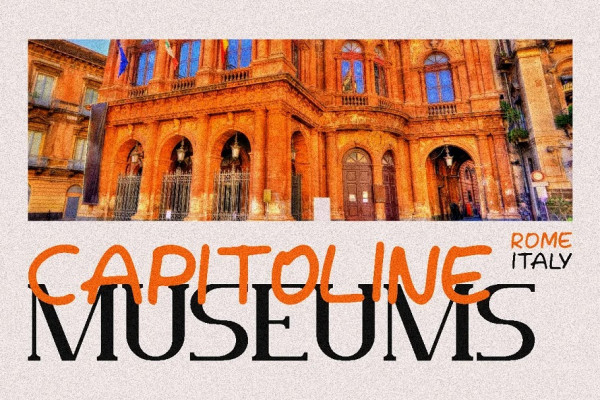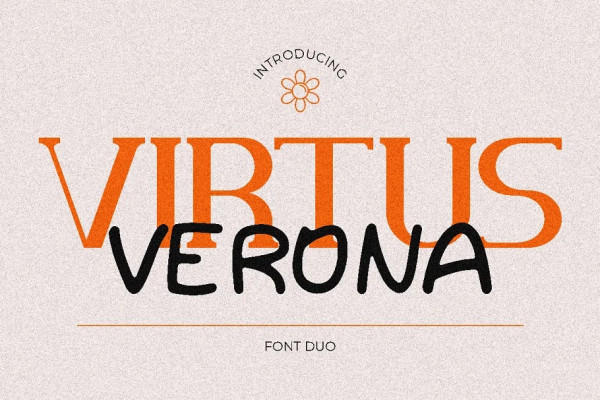
Virtus Verona Font
Virtus Verona Font – a duo font that combines classic elegance with a modern twist. This font is perfect for those who are looking for a versatile typeface that can be used for various projects, from wedding invitations to branding and packaging designs. The name VirtusVerona itself comes from the Latin words ‘virtus’ which means virtue and ‘Verona’ which is a city in Italy known for its romantic charm and stunning architecture. This font aims to capture the essence of classic beauty and sophistication while adding a touch of contemporary style.
This is a great choice for those who are looking for a font that can add a sense of femininity to their projects. The script font has a flowing, handwritten style that is perfect for wedding invitations or social media graphics. The sans-serif font, on the other hand, has a clean and modern look that is perfect for branding and packaging designs.
This font comes with several features that make it even more versatile. It includes both uppercase and lowercase letters, as well as opentype alternates and ligatures. This means that you can choose different letterforms to create a unique and personalized look for your designs. Additionally, it includes multilanguage support, making it accessible for designers and clients from different parts of the world.
If you’re looking for a font that can add elegance, sophistication, and a touch of modernity to your projects, it is definitely worth considering. Its classic yet contemporary style makes it a great choice for a variety of projects, from weddings to branding and packaging designs.
In summary, Virtus Verona is a duo font that combines classic elegance with a modern twist. Its flowing script font and clean sans-serif font make it a versatile choice for various projects. It includes features like opentype alternates and multilanguage support, and it comes in three file formats in the font package.